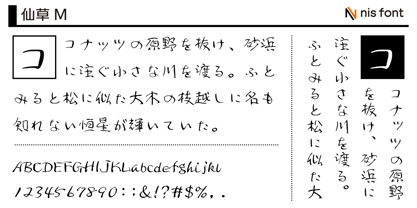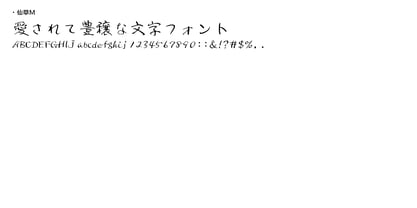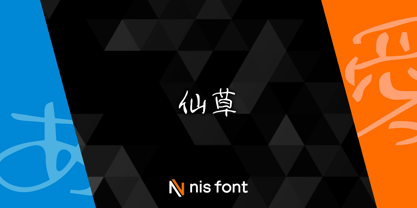
OT-NIS_SM
by NIS Fonts
The OT-NIS_SM Font Family was designed by and published by NIS Fonts. OT-NIS_SM contains 1 styles. More about this family
This is a pen-style typeface that reveals a refined elegance and mature charm within its expressive freedom the more it is used. The character set includes only kana, kanji, and symbols from JIS Level 1.